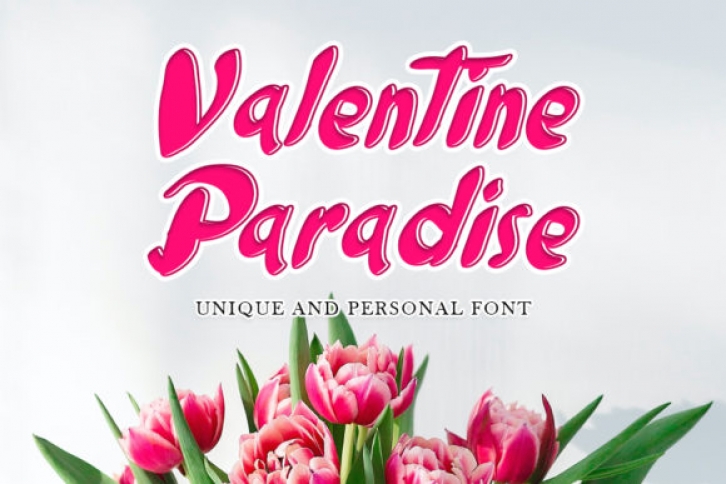
Valentine Paradise is a trendy and clean handwritten font. It will add an incredibly casual touch to your designs. Add it to each of your creative ideas and notice how it makes them stand out!